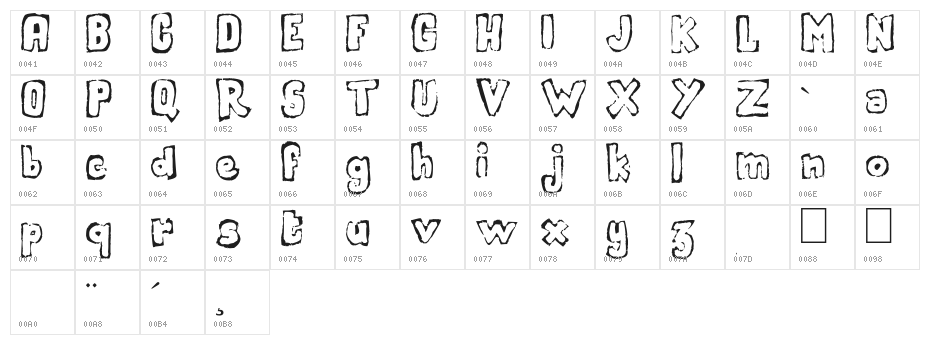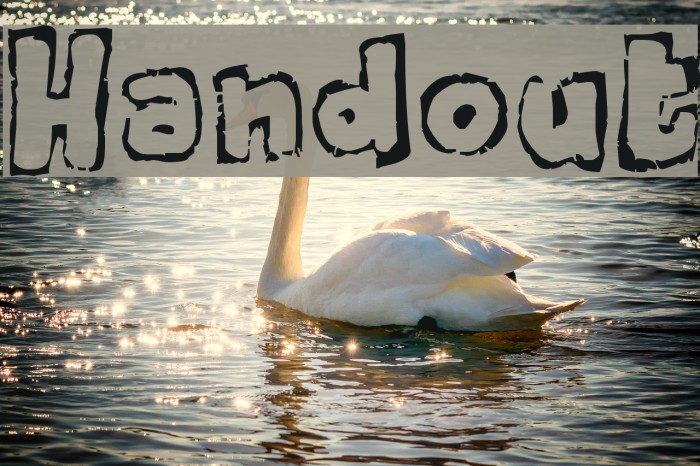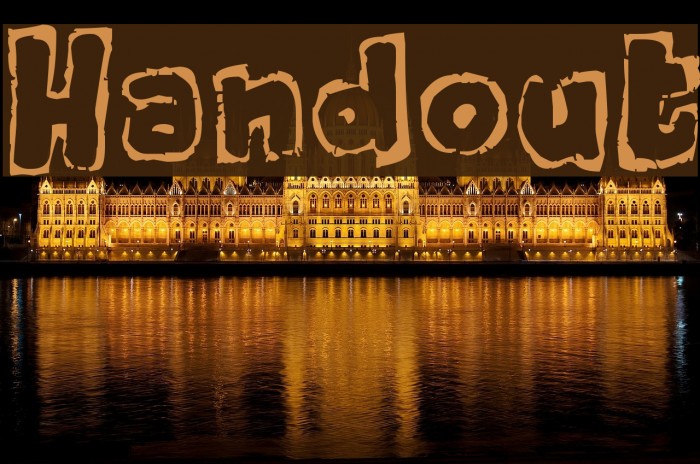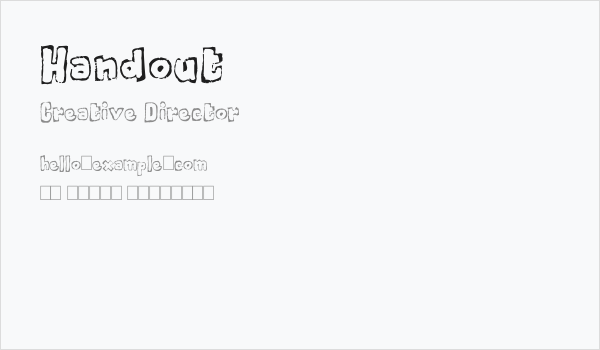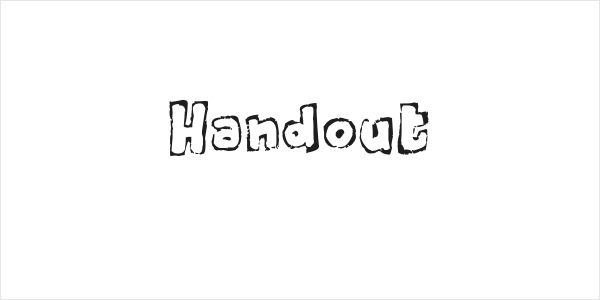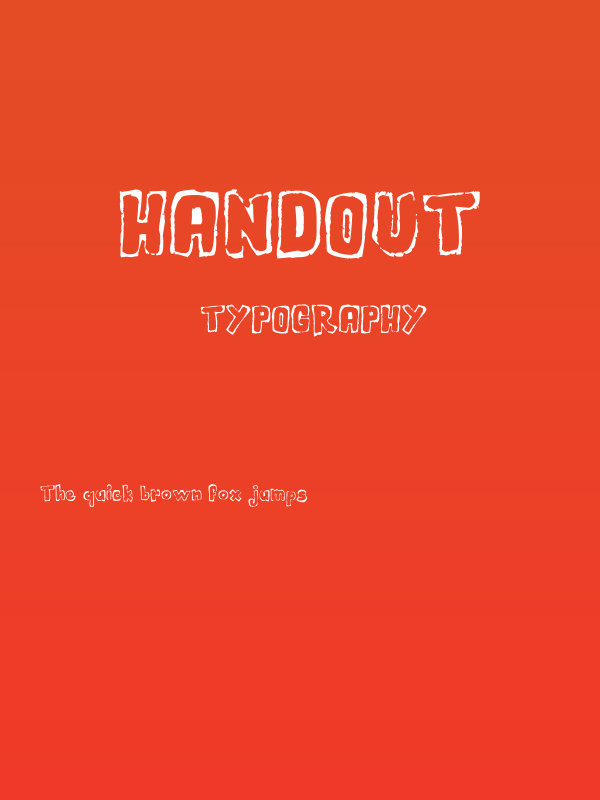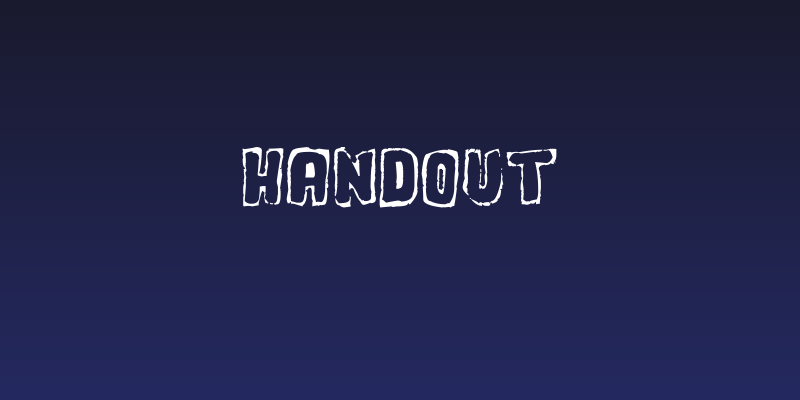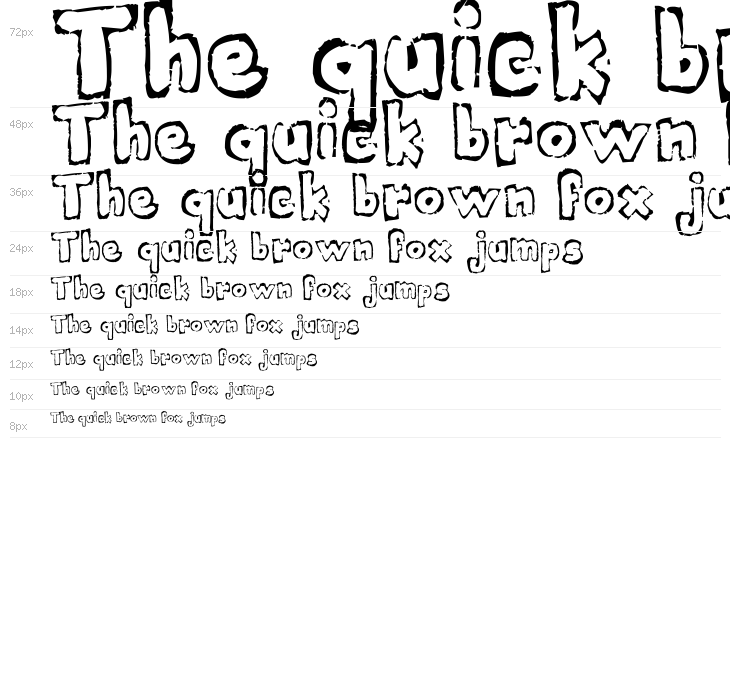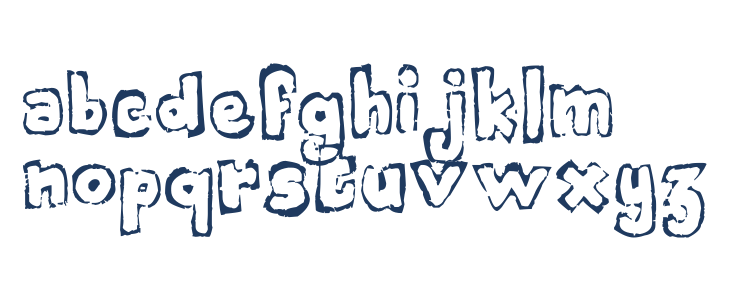
Handout Font
Handout Description
This font features a bold, hand-drawn style with a rough, textured appearance that gives it a unique and artistic look. The characters are uppercase and lowercase, with a playful and slightly irregular form that adds to its charm. The edges are uneven, creating a casual and informal vibe. The font includes numbers and a selection of special characters, maintaining the same hand-crafted aesthetic throughout. Its distinct style makes it stand out, perfect for projects that require a personal touch or a creative flair.
| Overall Style | Artistic, Playful, Hand-drawn |
| Use Case | Headlines, Posters, Creative Branding |
| Proposed Projects | Ideal for creative projects such as posters, album covers, children's books, and branding that requires a playful and artistic touch. |